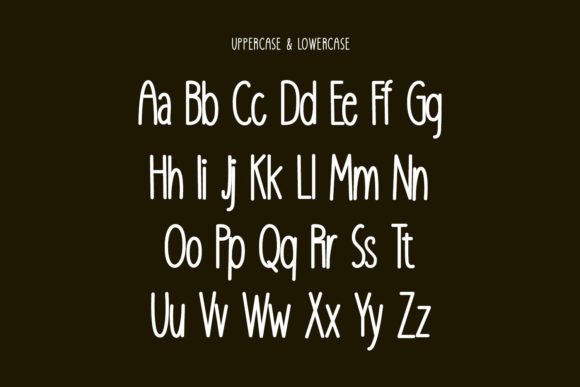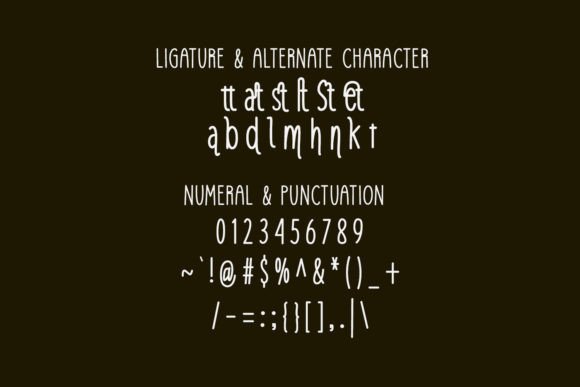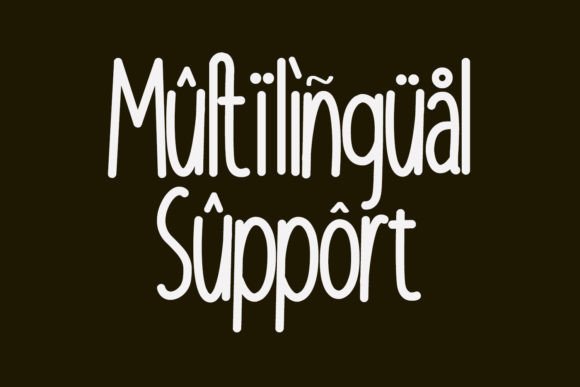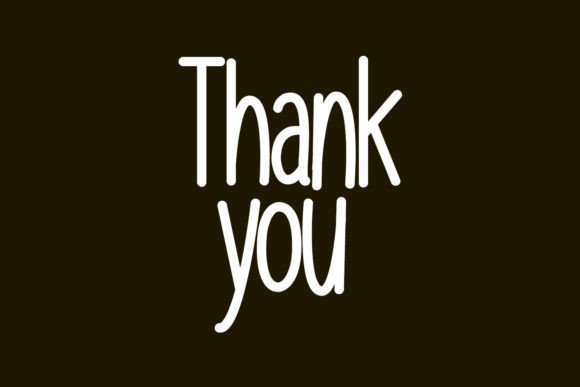
Introducing Camisol Fabric Font: The Sweet and Friendly Sans Serif for Your Designs
Are you on the hunt for a font that can add a touch of sweetness and friendliness to your designs? Look no further than Camisol Fabric Font! This delightful sans serif font is perfect for designers and crafters who want to infuse their projects with a natural and unique style. With its versatility and wide range of applications, Camisol Fabric Font is sure to become a staple in your design toolkit.
The Characteristics of Camisol Fabric Font
Camisol Fabric Font boasts a distinctive and charming appearance that sets it apart from other sans serif fonts. Its clean lines, rounded edges, and subtle curves give it a friendly and approachable feel that’s perfect for a variety of design projects. Whether you’re working on a logo, branding materials, packaging, or digital content, Camisol Fabric Font is sure to make a lasting impression.
What Makes Camisol Fabric Font So Versatile?
One of the standout features of Camisol Fabric Font is its incredible versatility. Its natural and unique style makes it incredibly fitting to a large pool of designs, from modern and minimalist to playful and whimsical. The only limit is your imagination! Whether you’re designing for print or digital, Camisol Fabric Font adapts seamlessly to any medium, ensuring your message looks great no matter where it’s seen.
Camisol Fabric Font is a dream come true for designers and crafters who want to add a personal touch to their projects. Its sweet and friendly aesthetic makes it perfect for:
- Branding and logos: Create a lasting impression with a custom logo that showcases your brand’s personality.
- Packaging design: Stand out on store shelves with eye-catching packaging that features Camisol Fabric Font.
- Digital content: Add a touch of warmth and personality to your website, social media, or email marketing campaigns.
- Crafting and DIY projects: Use Camisol Fabric Font to add a personal touch to your handmade creations, such as signs, cards, or gift tags.
Tips for Using Camisol Fabric Font
To get the most out of Camisol Fabric Font, here are a few tips to keep in mind:
- Experiment with different colors: Camisol Fabric Font looks great in a variety of colors, from bright and bold to soft and pastel.
- Mix and match with other fonts: Pair Camisol Fabric Font with other fonts to create a unique and visually appealing combination.
- Play with layout and texture: Add depth and interest to your design by experimenting with different layouts and textures.
In conclusion, Camisol Fabric Font is a sweet and friendly sans serif font that’s perfect for designers and crafters who want to add a touch of natural and unique style to their projects. With its versatility, wide range of applications, and ease of use, Camisol Fabric Font is sure to become a favorite in your design toolkit. So why wait? Download Camisol Fabric Font today and let your imagination run wild!